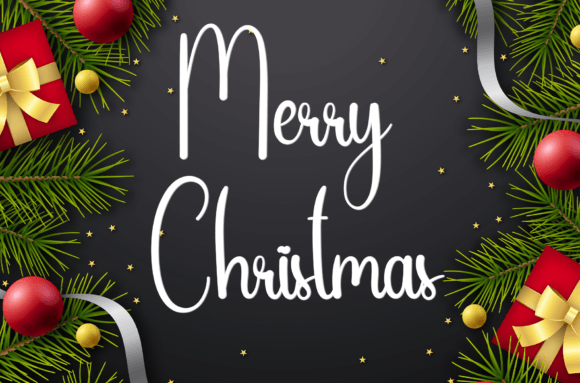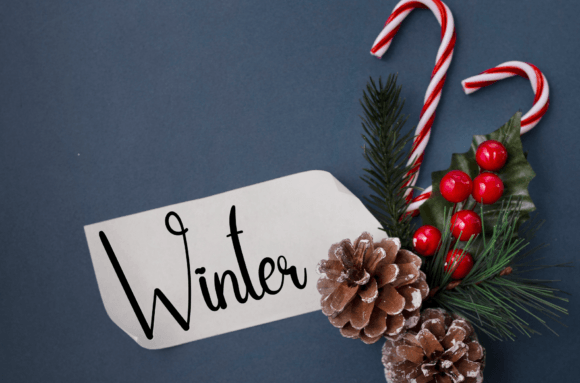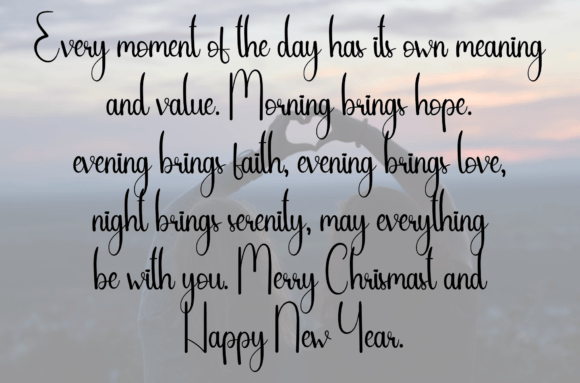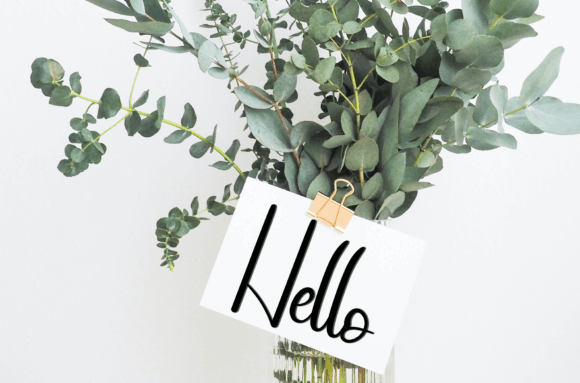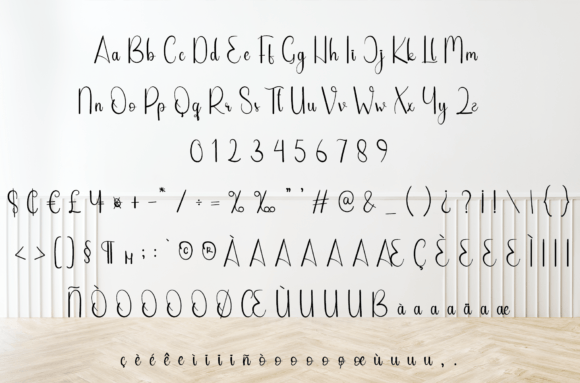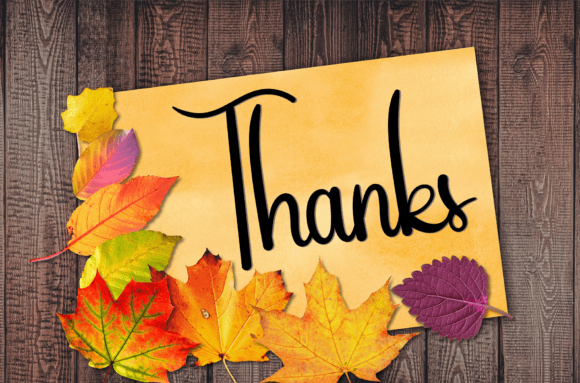
Unwrapping the Magic of Baby Santa Font
As designers, we’ve all been there – staring at a blank canvas, brainstorming ideas, and desperately seeking inspiration. It’s moments like these that remind us why we love our job so much. And then, suddenly, it hits us – a burst of creativity that sets our imagination ablaze. For some of us, it might be a dash of festive cheer, a pinch of nostalgia, or a whole lot of whimsy. Whatever the spark, it’s what drives us to create something truly special.
Enter the Baby Santa Font, a delightful and charming style that captures the essence of the holiday season in a way that’s both timeless and trendy. This versatile font is designed to add a touch of personality to a wide range of projects, from wedding invitations and social media logos to product packaging and labels. For designers, the Baby Santa Font offers a valuable opportunity to infuse their work with a sense of warmth and character that’s sure to leave a lasting impression.
Baby Santa Font Key Features
- Unique Characteristics: The Baby Santa Font features a playful, cursive script style with a distinctive, hand-drawn feel, making it perfect for creating a festive and whimsical atmosphere.
Designer Review: Baby Santa Font
Overall, the Baby Santa Font has a certain charm to it. ✨ The font’s playful and whimsical feel is perfect for holiday-themed projects or designs aimed at a younger audience. The font’s rounded edges and cute details give it a lovable and childlike quality that can be very effective in the right context.
However, there are a few limitations to consider. ⚠️ For one, the font’s design may be too simplistic for some users. The lack of variation in letterforms and the overall consistency in style may make it feel a bit too uniform. Additionally, the font’s small size may not be legible at larger scales, which could be a concern for designs that require text to be displayed at a larger size.
Some potential uses for the Baby Santa Font include:
- Holiday-themed designs, such as Christmas or New Year’s cards and invitations
- Children’s book covers or interior illustrations
- Playful website headers or footers
Overall, the Baby Santa Font is a fun and unique addition to any designer’s toolkit. While it may have its limitations, it’s perfect for projects that require a playful and childlike feel.
Tips for Getting the Most Out of Baby Santa Font
1. Use the font in combination with other festive elements, such as snowflakes, holly, or Christmas trees.
2. Experiment with different font sizes and styles to create visual interest.
3. Use the font to create a consistent brand identity for your holiday marketing campaigns.
Common Use Cases for Baby Santa Font
1. Holiday greeting cards and invitations
2. Social media posts and advertisements